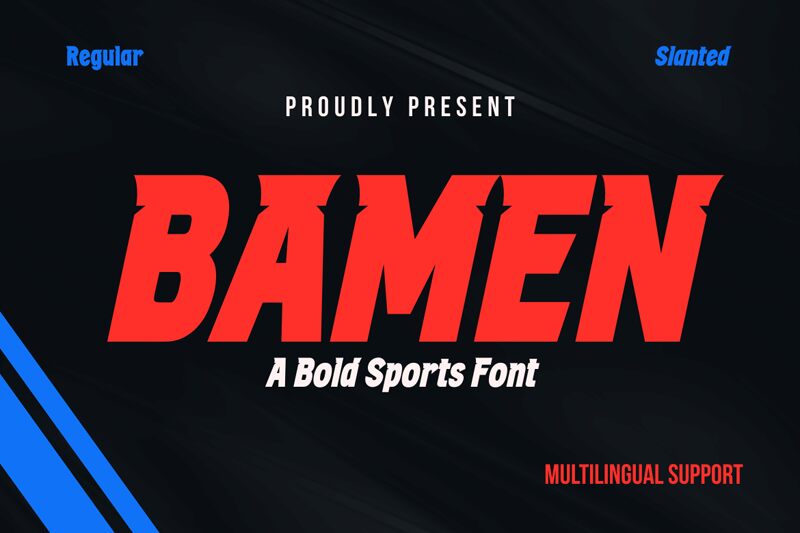
Bamen font is a free contemporary display typeface designed by Twinletter with inspiration from graphic design, traditional details, and architectural elements. It has bold condensed letters whose geometric shapes stand robust and impactful. Its modern outlook gives off an artistic charm useful in decorating all types of printed or digital designs.